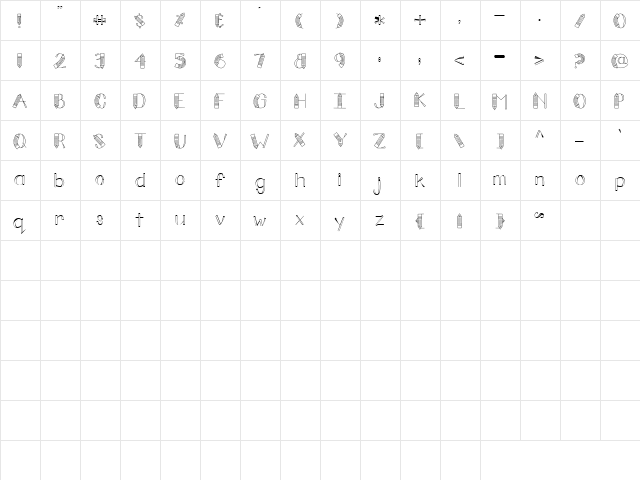
CK Pencils Regular
Design Context for CK Pencils Typeface
CK Pencils is a composed and adaptable typeface that performs quietly and consistently across a wide range of design contexts.